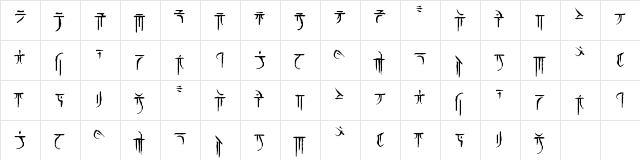
Iokharic Regular Free Font
Iokharic Regular
Foundry: Neale Davidson
Designer: Neale Davidson
Design Context for Iokharic
Iokharic is a composed and adaptable typeface that performs quietly and consistently across a wide range of design contexts.